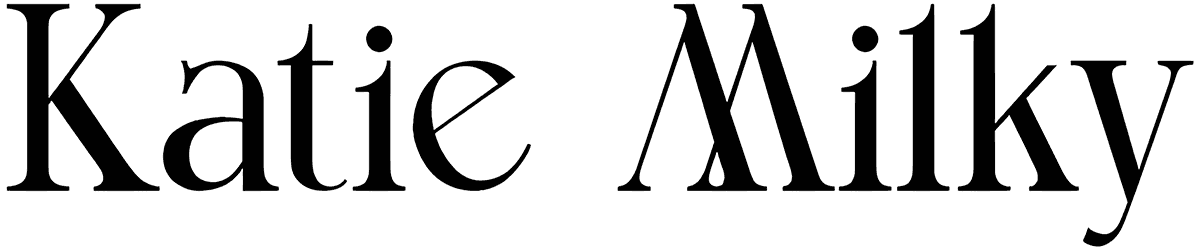
Katie Milky Font
There’s no such thing as getting used to the sophisticated impact of Katie Milky, no matter how many times you use it in your different branding designs. It’ll give a professional look to your business cards and logotypes that happens in a click, and it can make a big difference in the feedback from the clients.
So have fun turning this super elegant font into the brand identity of luxury products and services, jewelry making, financial management, and video editing.